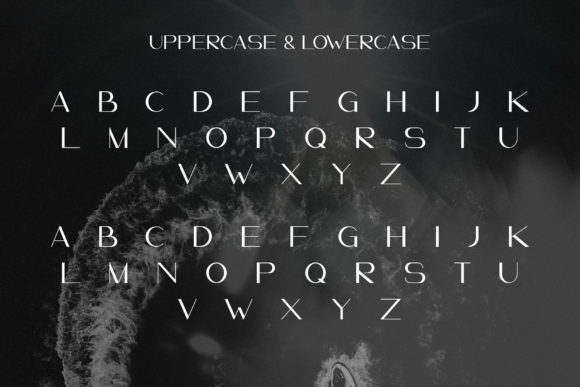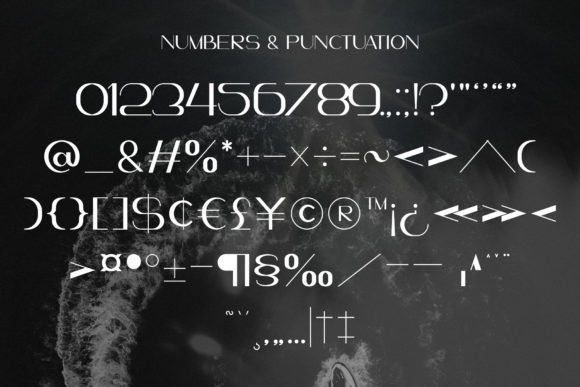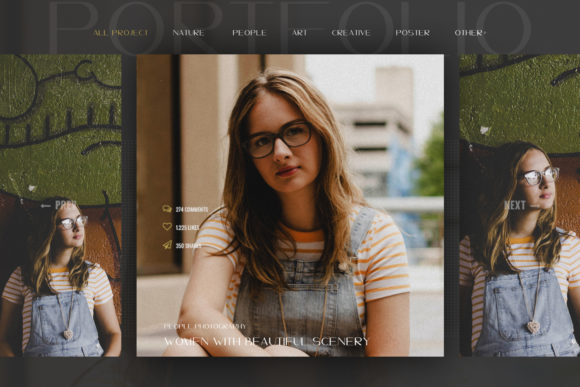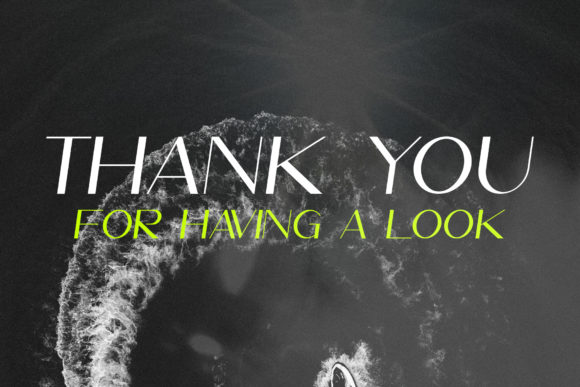
Introduction to Leander Font
Leander is a really elegant and charming sans serif font.
Made with precision and harmony in each character, this stylish font can be used for a big variety of designs, including logo & branding, wedding designs, social media postings, advertising & product design .
Key Features of Leander Font